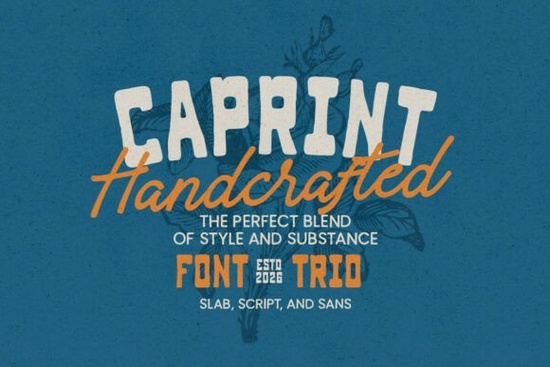
If you're working on a branding project that leans into rustic charm, outdoor adventure, or vintage Americana, the Caprint Font trio offers a versatile toolkit that feels both intentional and authentic. Designed with handcrafted textures and organic shapes, this collection includes three distinct typefaces a bold slab serif, a clean minimalist sans, and a relaxed handwritten script that work beautifully together or on their own.
What makes Caprint especially useful is how naturally it fits projects like logo design, apparel prints, poster layouts, or quote graphics where warmth and personality matter more than sterile precision. Whether you’re creating merch for a hiking brand, designing signage for a farm stand, or crafting social media visuals for a western-themed event, these fonts bring cohesion without looking overly matched.
Why does this font trio stand out for handmade or rustic projects?
Unlike many digital fonts that aim for uniformity, Caprint embraces slight imperfections uneven strokes in the script, subtle texture in the slab serif, and gentle curves in the sans. These details mimic real-world lettering you’d find on weathered wood signs or screen-printed tees, which helps your designs feel grounded and tactile.
Each style in the set serves a clear purpose:
- The Caprint Slab delivers strong presence with its chunky, confident letterforms ideal for headlines or logos that need to grab attention from a distance.
- The Caprint Sans strips things back to clean lines, making it perfect for subheadings, labels, or body text that still needs to feel part of the same visual family.
- The Caprint Script adds a personal, human touch great for quotes, signatures, or accent words that benefit from a casual, ink-on-paper vibe.
Because all three are designed as a system, mixing them rarely feels disjointed. You can pair the slab with the script for contrast, or layer the sans over textured backgrounds without losing legibility.
Does it support languages beyond English?
Caprint includes extended language support, covering most Western European characters (like accented letters used in French, Spanish, German, and Portuguese). This makes it viable for international audiences or bilingual designs without needing to switch fonts mid-project.
If your work regularly involves non-Latin scripts (like Cyrillic or Greek), however, you’ll want to verify character coverage before committing. For most English-centric or European-facing projects, though, it’s more than sufficient.
How does Caprint compare to other slab serif fonts?
Many slab serifs lean industrial or geometric think sharp corners and rigid spacing. Caprint’s version is softer, with rounded terminals and organic weight distribution that echoes hand-carved wood type. If you’ve browsed our roundup of expressive slab serifs, you’ll notice Caprint occupies a unique middle ground: bold enough to stand out, but warm enough to feel inviting.
It also differs from typical “cowboy” fonts by avoiding clichés like spurs, lassos, or exaggerated swashes. Instead, it suggests the theme through texture and proportion making it adaptable for modern rustic brands that want heritage vibes without costume-y aesthetics.
- ✅ Confirm your software supports OpenType features (for stylistic alternates in the script).
- ✅ Use the slab for impact, the sans for clarity, and the script for personality don’t force all three into one layout unless there’s clear hierarchy.
- ✅ Pair with natural textures (kraft paper, linen, wood grain) to amplify its organic feel.
With its balanced mix of strength and softness, Caprint isn’t just another themed font it’s a flexible asset for creators who value authenticity over trendiness.